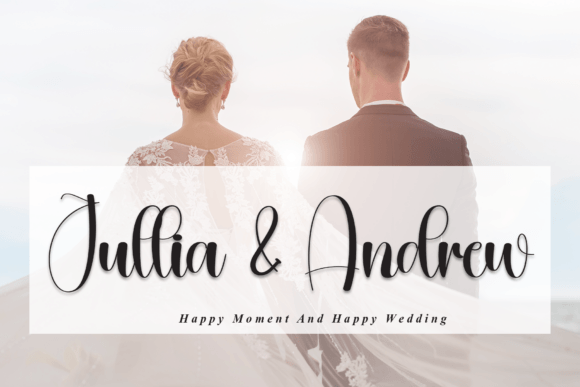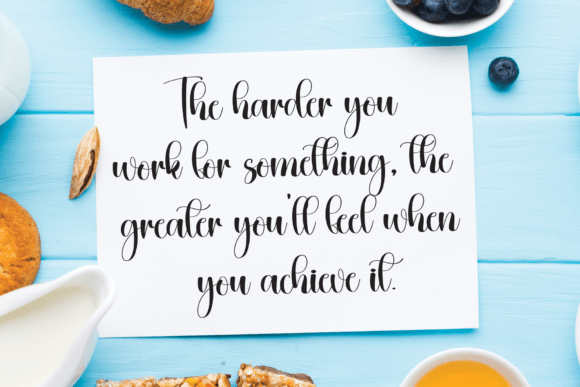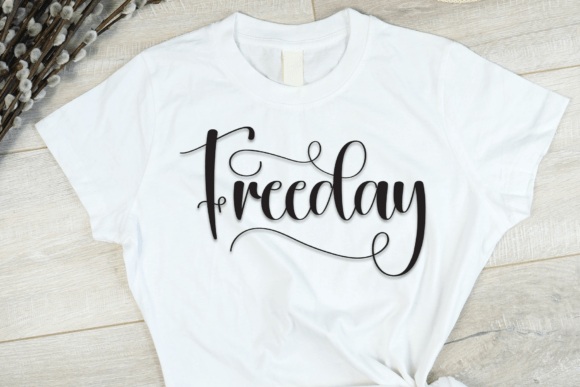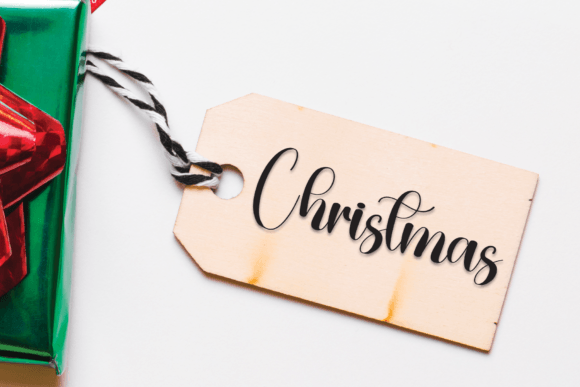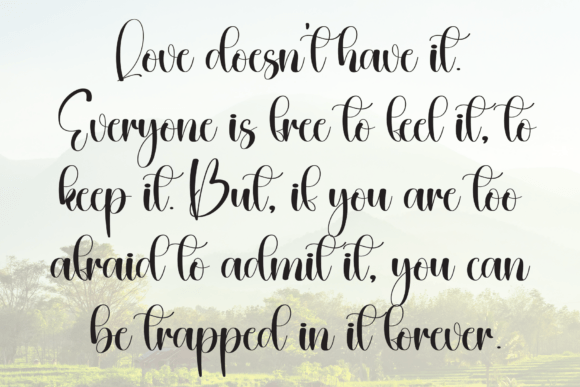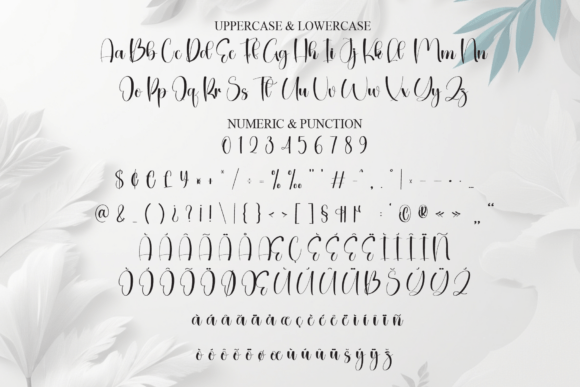
Introducing Breaching Font: Elevate Your Designs with Elegance and Playfulness
In the world of typography, fonts play a crucial role in conveying the tone and personality of a design. For those seeking a typeface that exudes both elegance and playfulness, look no further than Breaching Font. This charming script font is designed to add a touch of sophistication and whimsy to your creative projects, making it perfect for invitations, cards, and a wide range of design applications.
The Characteristics of Breaching Font
Breaching Font boasts smooth, flowing letters that dance across the page with a sense of fluidity and movement. Its curves are meticulously crafted to create a sense of elegance, while its playful undertones inject a dose of personality into any design. This unique blend of refinement and playfulness makes Breaching Font an excellent choice for designers and crafters looking to add a personal touch to their work.
Perfect for Invitations and Cards
When it comes to creating invitations and cards, the font used can make all the difference. Breaching Font is specifically designed to add a touch of sophistication and whimsy to these types of projects. Whether you’re designing a wedding invitation, a birthday card, or a holiday greeting, Breaching Font is sure to impress. Its elegant curves and playful undertones create a sense of warmth and invitation, making the recipient feel special and valued.
Adding a Personal Touch to Your Designs
One of the standout features of Breaching Font is its ability to add a personal, handwritten touch to your designs. In an era where digital communication dominates, a handwritten font can be a breath of fresh air. Breaching Font’s smooth, flowing letters evoke the feeling of a pen gliding across paper, creating a sense of intimacy and connection with the reader. This makes it perfect for designers and crafters looking to add a human touch to their work.
The versatility of Breaching Font is another one of its key strengths. This charming script font can be used in a wide range of creative projects, from:
- Birthday cards and party decorations
- Holiday greetings and gift tags
Wherever you need to add a touch of elegance and playfulness, Breaching Font is the perfect choice.
Why Choose Breaching Font?
So why should you choose Breaching Font for your next design project? Here are just a few reasons:
- Elegant and playful: Breaching Font combines the best of both worlds, offering a unique blend of sophistication and whimsy.
- Versatile: This charming script font can be used in a wide range of creative projects.
- Personal touch: Breaching Font’s smooth, flowing letters add a human touch to your designs.
- Easy to read: Despite its elegant curves, Breaching Font remains clear and easy to read.